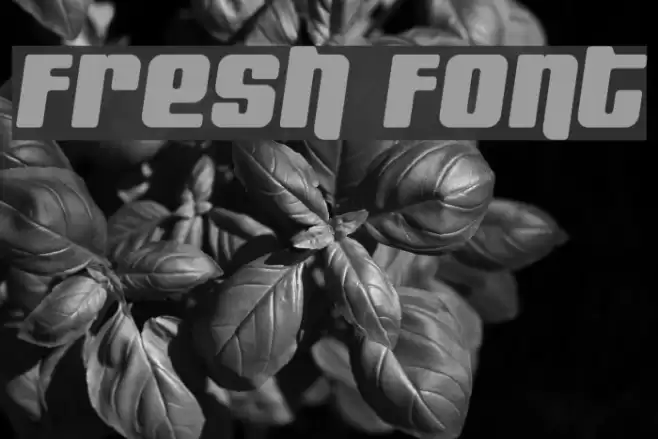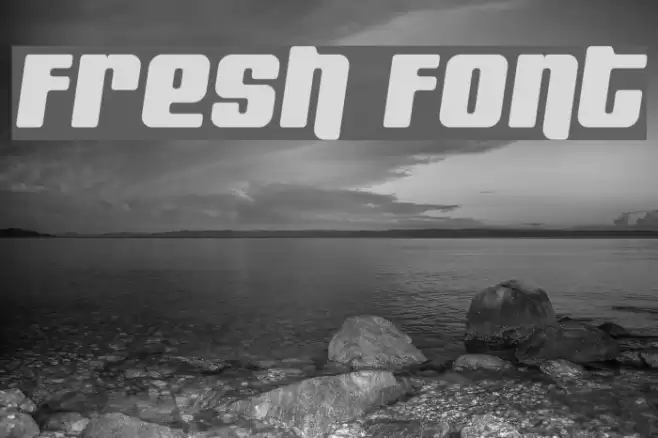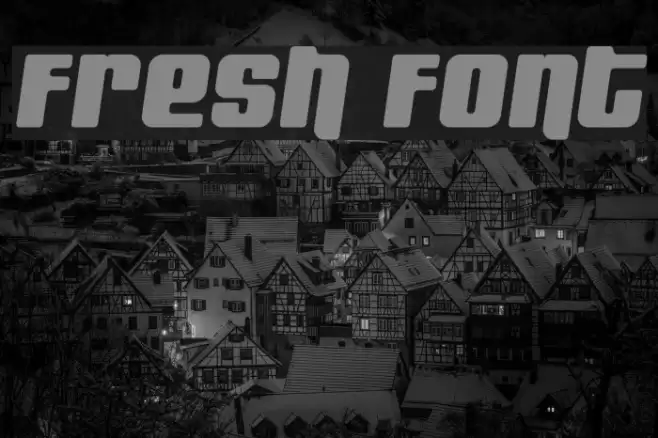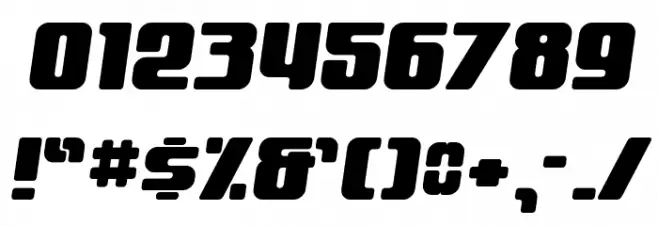
Fresh Font
Fresh Description
This bold, modern font features thick, rounded characters with a strong presence. The uppercase letters are uniform in height, while the lowercase letters maintain a consistent style, offering a cohesive look. The numbers are equally bold, ensuring readability and impact. Special characters are designed to match the overall aesthetic, making this font versatile for various uses. The strokes are consistent in width, providing a clean and polished appearance. This font is ideal for projects that require a strong, contemporary feel.
A bold, modern font with rounded characters and consistent stroke width from Uncategorized fonts.
- Proposed Projects: Ideal for branding, headlines, posters, and advertising materials that require a strong visual impact.